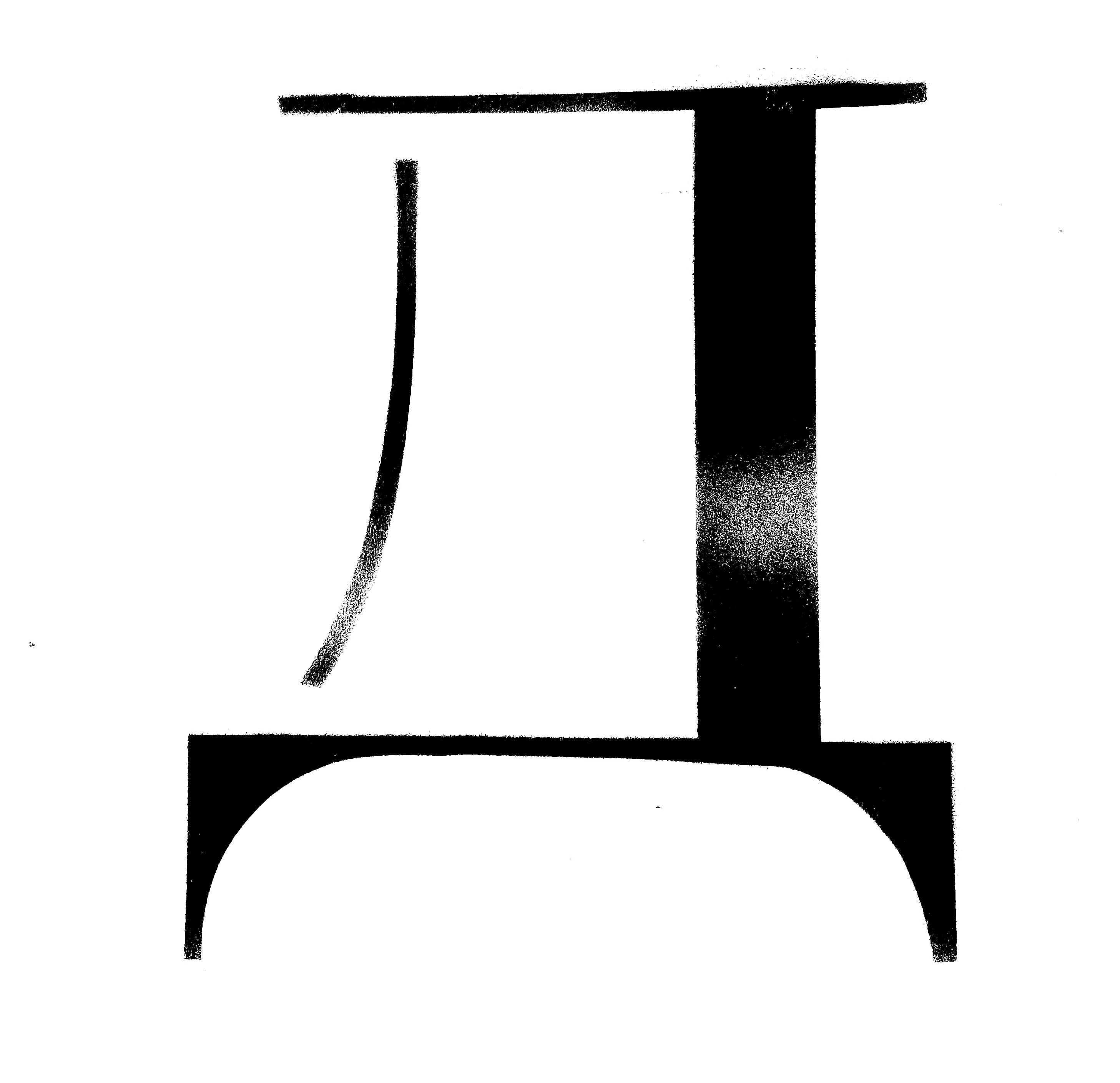
Sharp Serif Display PanEuro
Sharp Serif Display, the display counterpart to Sharp Serif takes a radical approach to optical size: combining the abstract constructivist forms of stencil designs with the high-contrast hairline forms of more standard display serif typography. Like so many other vernacular typographic styles of the past, stencil designs came from a practical need. In the digital era, the utilitarian demands of the genre (quick application of lettering onto large dimensional objects of varied surfaces and textures) is less relevant, but the forms that resulted have earned their place in the lexicon of contemporary typographic style.
Sharp Serif Display is in dialogue with these charming and irreverent formulations, as well as a more contemporaneous approach to the stenciled genre as pioneered by Paul Barnes with Dala Floda, in which contrast in serif typography is simply dialed to the point at which the hairlines disappear entirely. As a display counterpart to our quintessential textface Sharp Serif, Sharp Serif Display brings a hefty dose of flare to the family, which can peacock display settings all on its own, or serve as a chic counterpart to its more understated textface mate.
smcp
Small Capitals
ss01
ss02
ss03
ss04
ss05
ss06
subs
Subscript
sups
Superscript
tnum
Tabular Figures